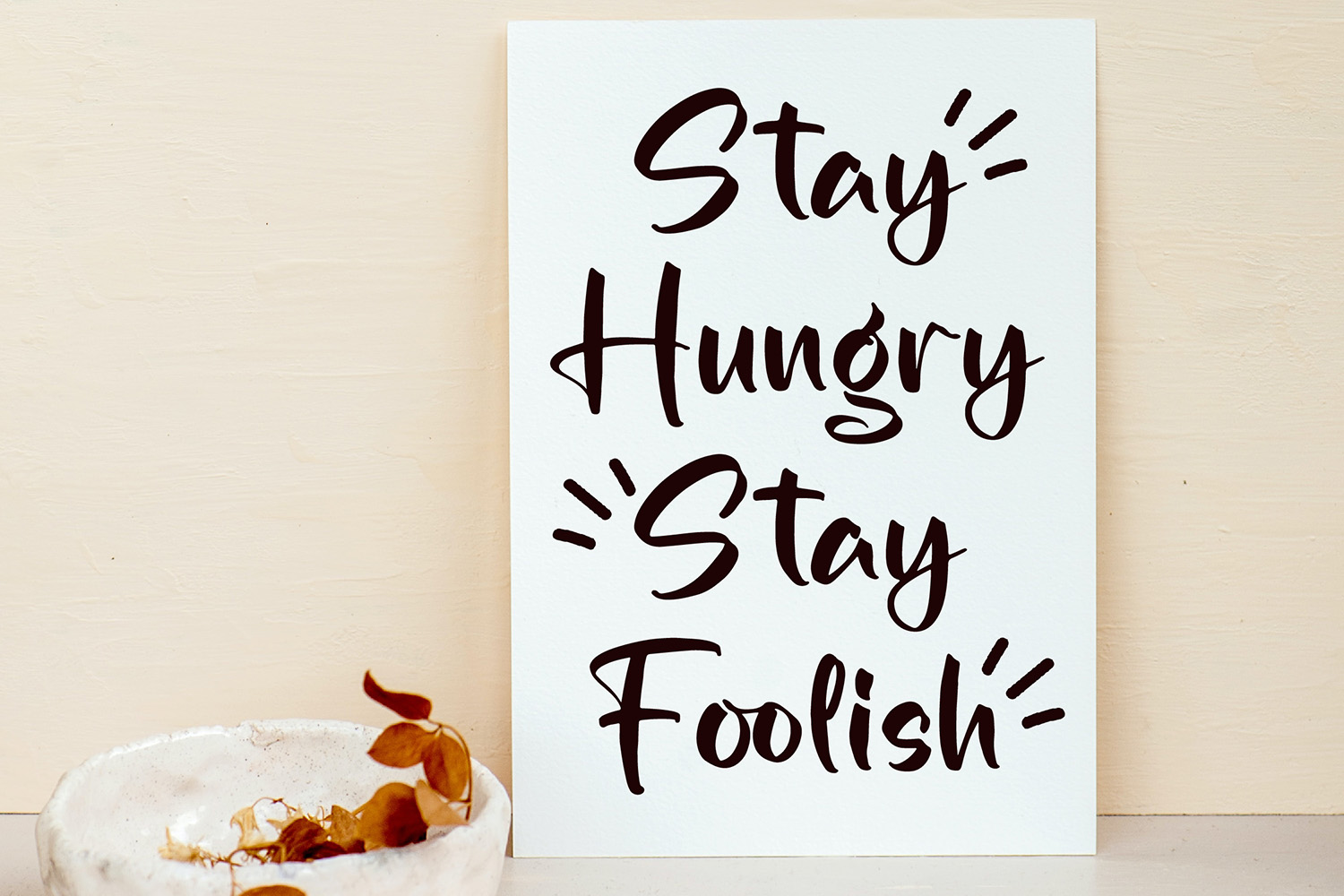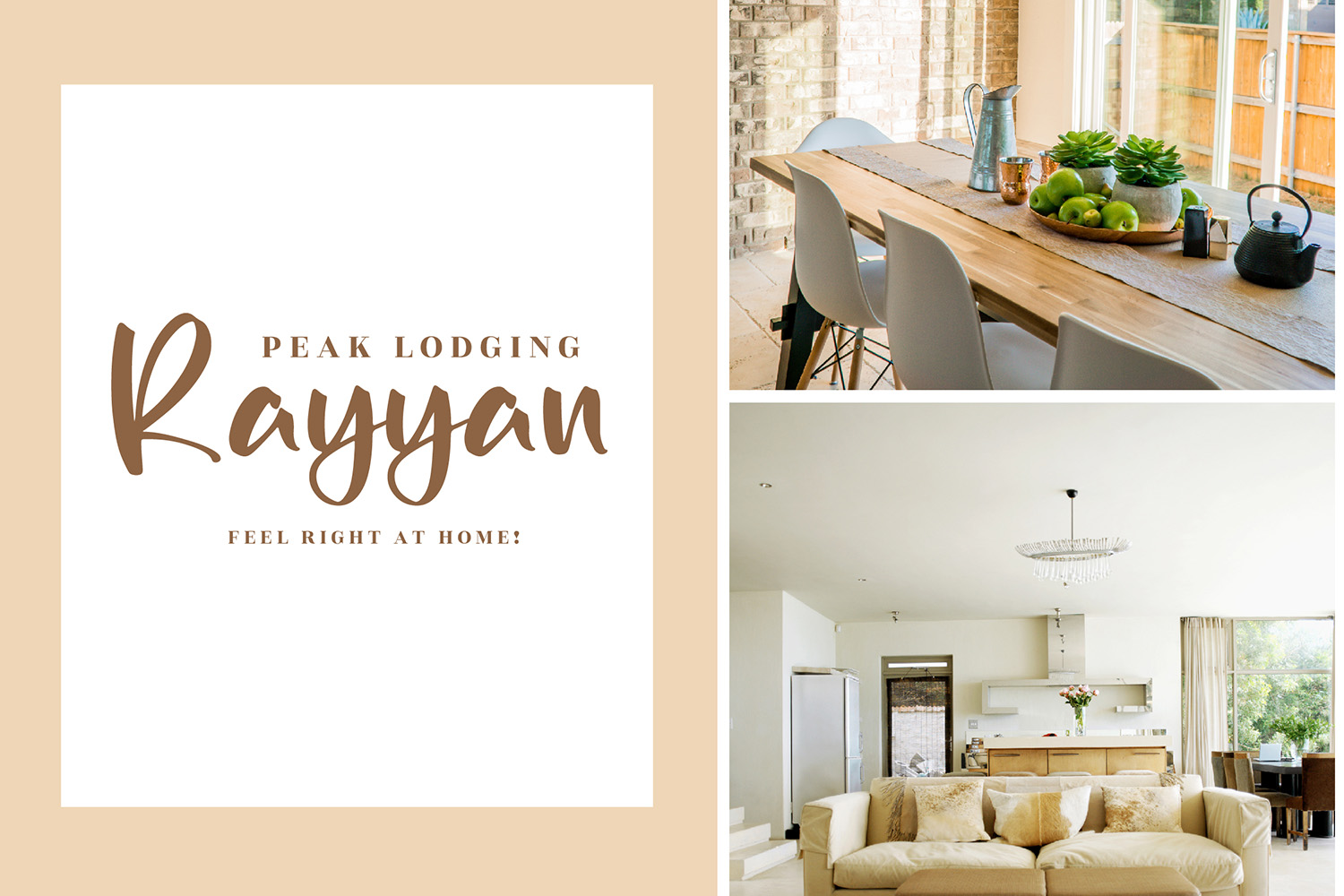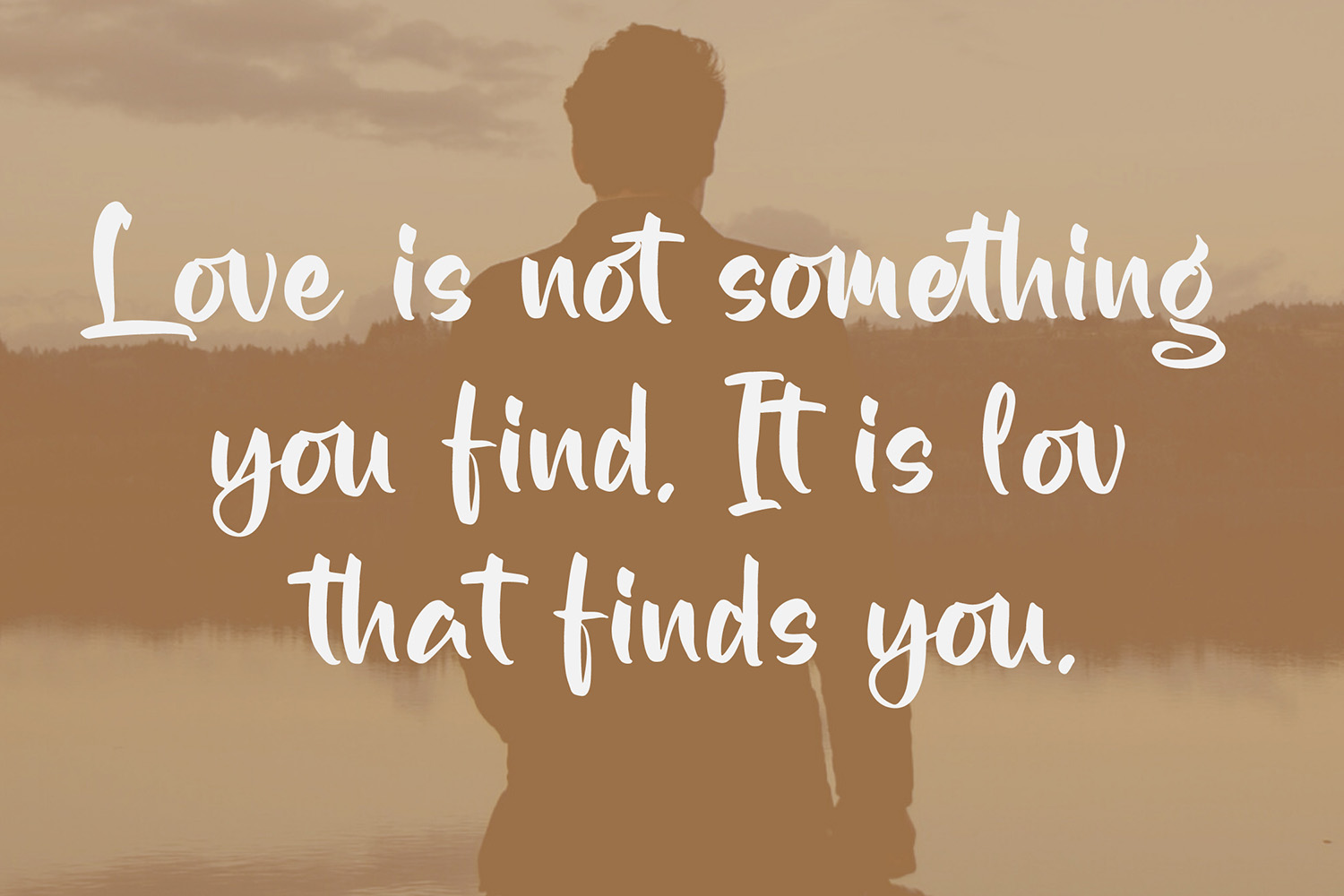
Konekta Free Font
Discover Konekta Free Font, a refined and graceful handwritten font. The unique and harmoniously crafted letters transform this font into a work of art. Embrace its exceptional versatility and harness it to craft breathtaking designs that capture hearts. This free typeface was designed by a talented Glorytype Studio. If you like it don’t forget to check out the full version.